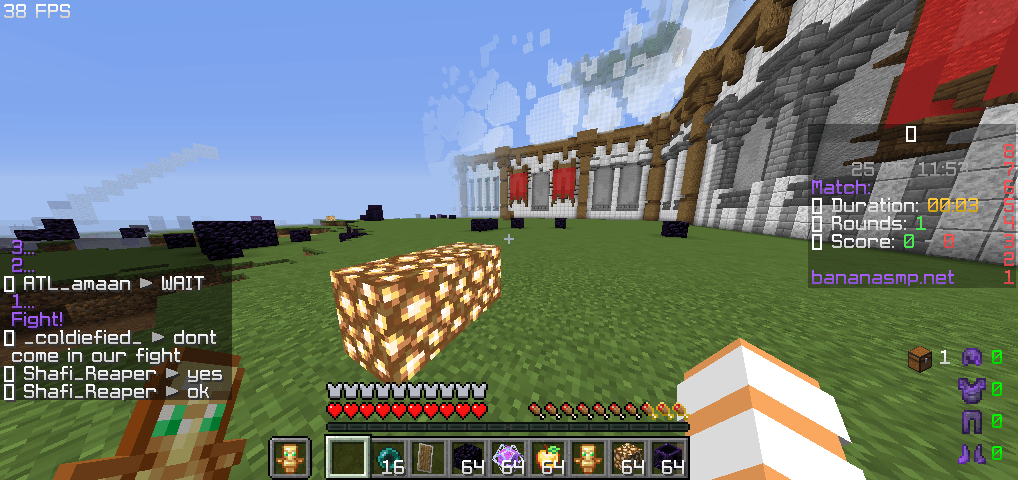
Classic Font
This Resource Pack Remove The Old Font And Add The Classic Font!
✦ Classic Font ✦
An ultra-clean, high-readability font overlay designed specifically for Minecraft PvP and survival enthusiasts. This pack replaces the default Font And Add New Better Font!
⚡ Key Features:
• Sweat-Ready Readability: Optimized spacing and pixel-perfect thickness To Provide You a Better Font.
• Use Classic Font For Better Font.!